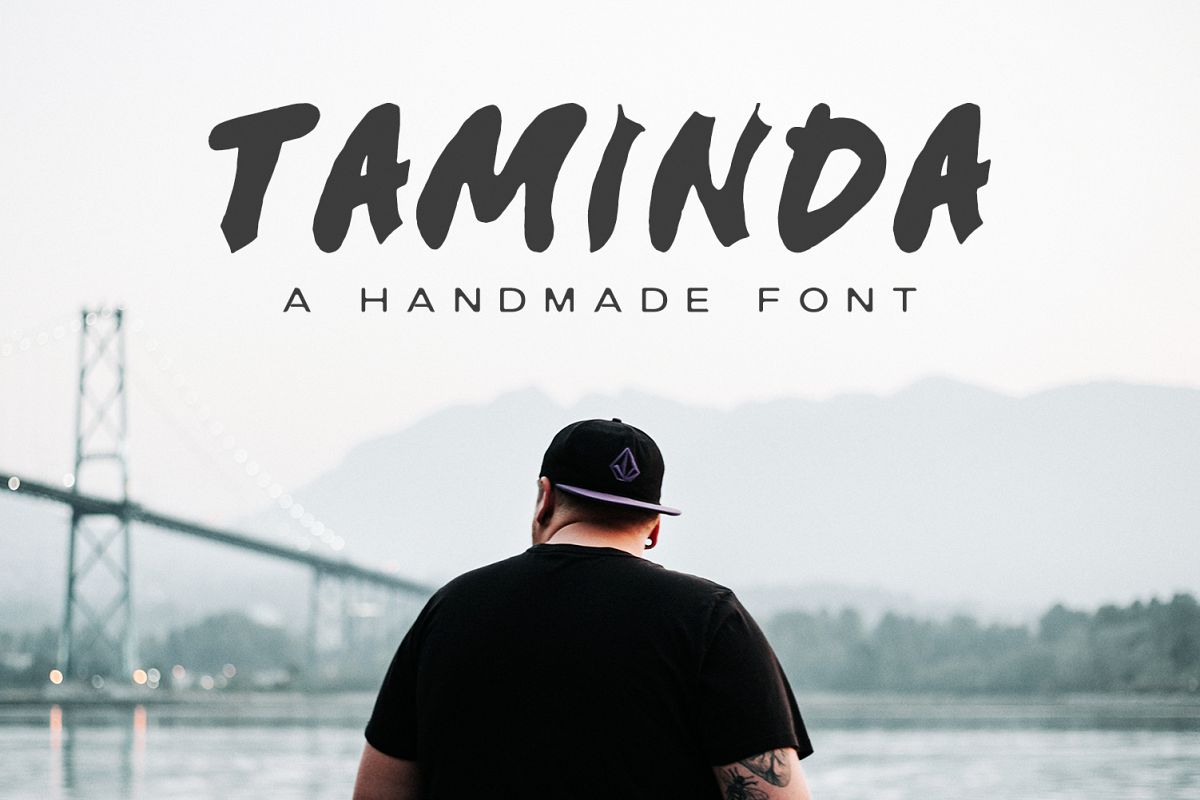
Taminda A Handmade Font
Taminda is a modernistic handmade font written with soft hand to produce a high quality font. It will look great for greeting cards, branding materials, wedding postcard, business cards, quotes, posters, small business, book covers, stationery, marketing, magazines and more.
Taminda Font Features:
• Uppercase Multilingual Letters
• Lowercase Multilingual Letters
• Non English Characters ( Latin Supplement )